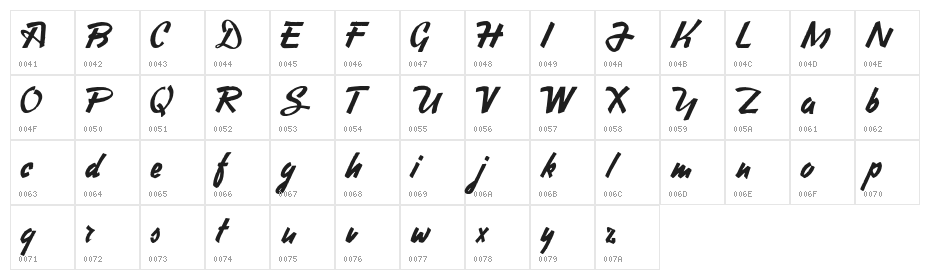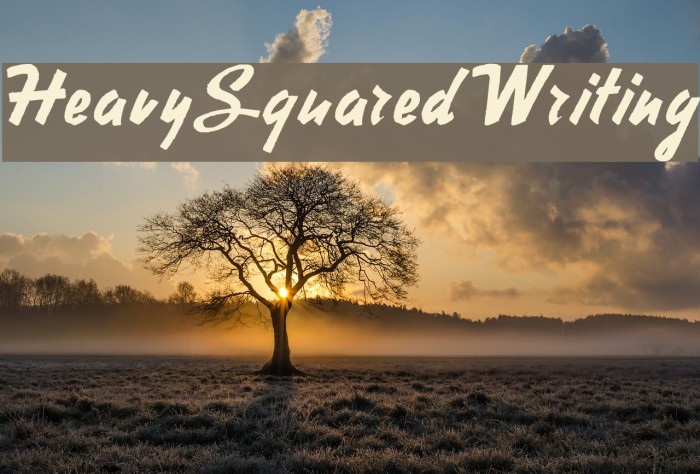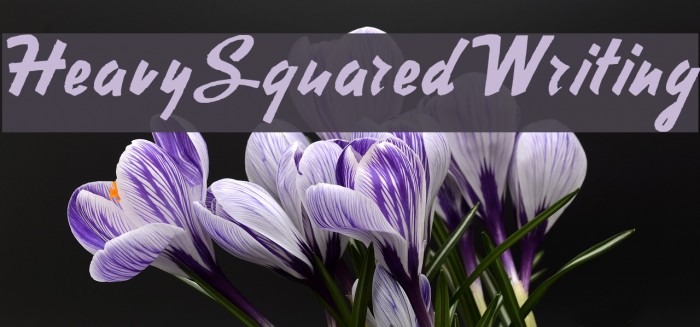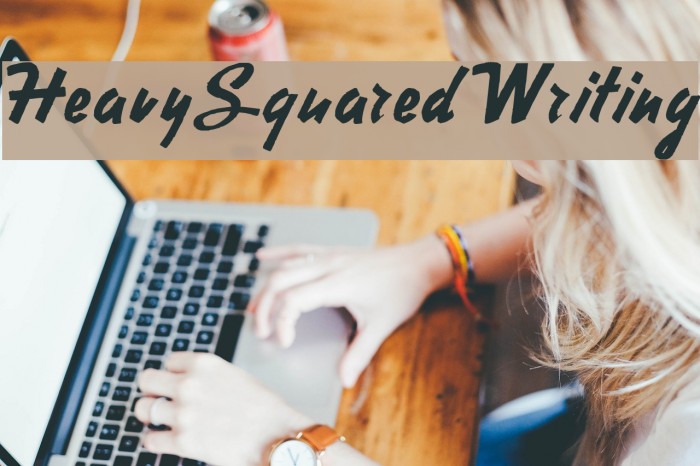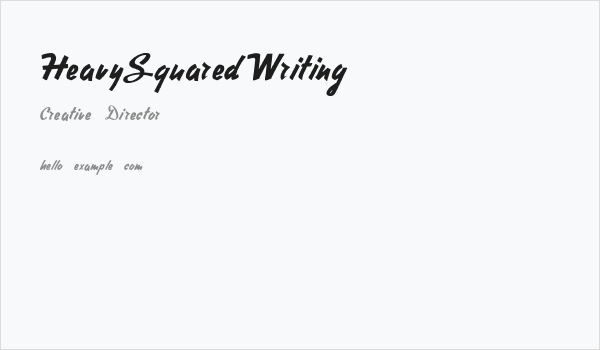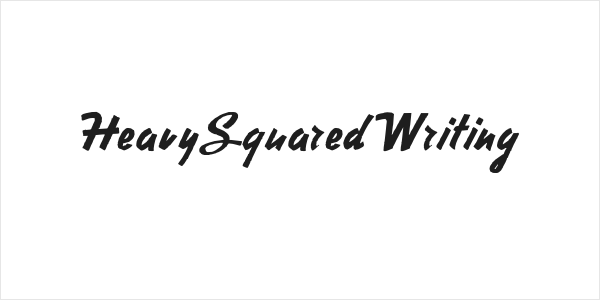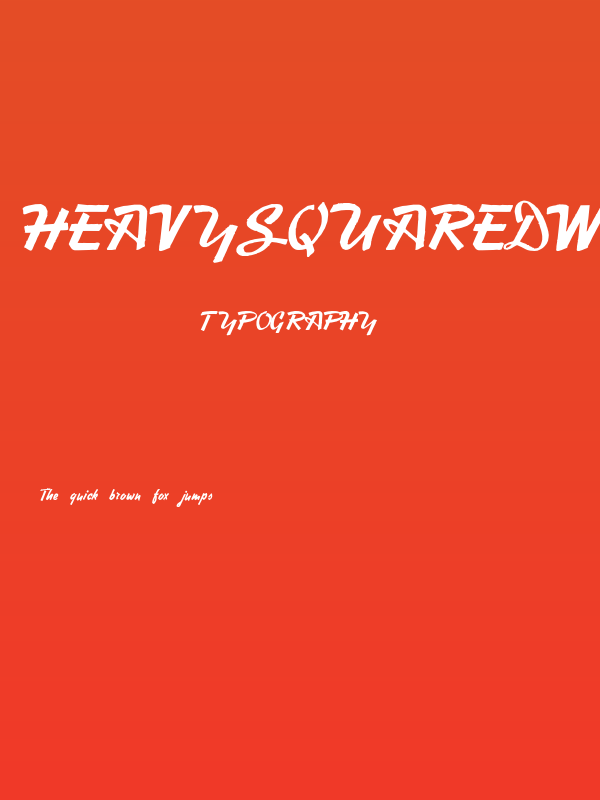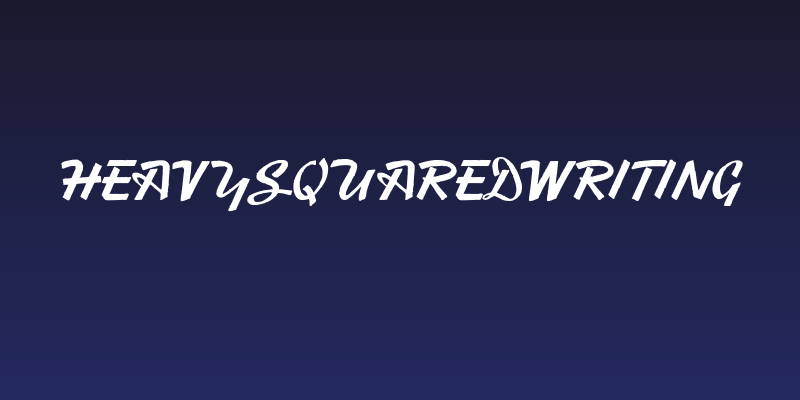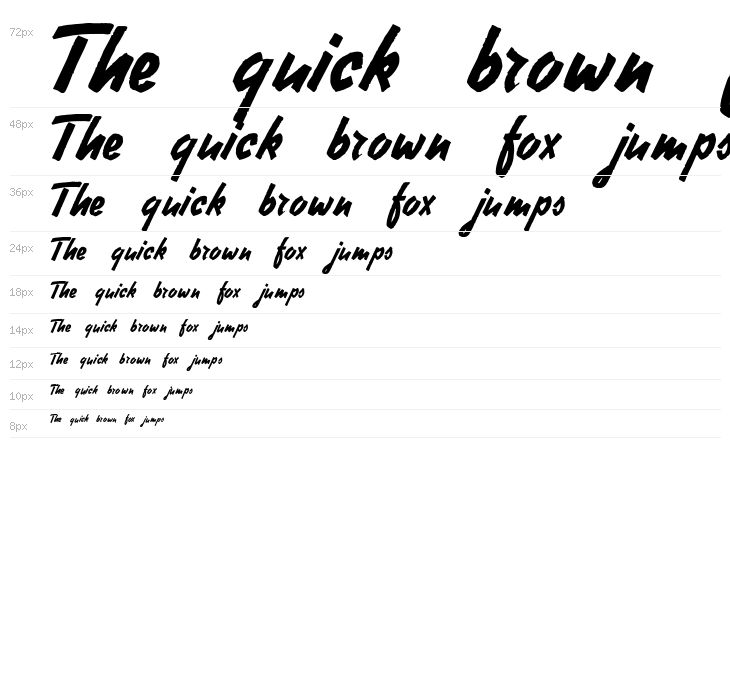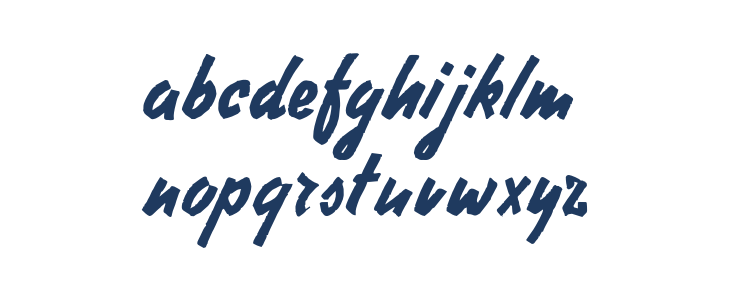
HeavySquaredWriting Font
HeavySquaredWriting Description
This font features a bold, dynamic style with a strong presence. The characters are crafted with a brush-like appearance, giving them a handwritten feel. The uppercase letters are slightly slanted, adding a sense of motion and energy. The lowercase letters maintain this fluidity, with some characters extending below the baseline, enhancing the script-like quality. The numbers and special characters are consistent with the overall style, ensuring a cohesive look across all elements. This font's boldness and unique character make it stand out, suitable for projects that require a touch of personality and flair.
| Use Case | Logos, Headlines, Posters |
| Proposed Projects | Ideal for branding, posters, invitations, and any design needing a personal touch. |